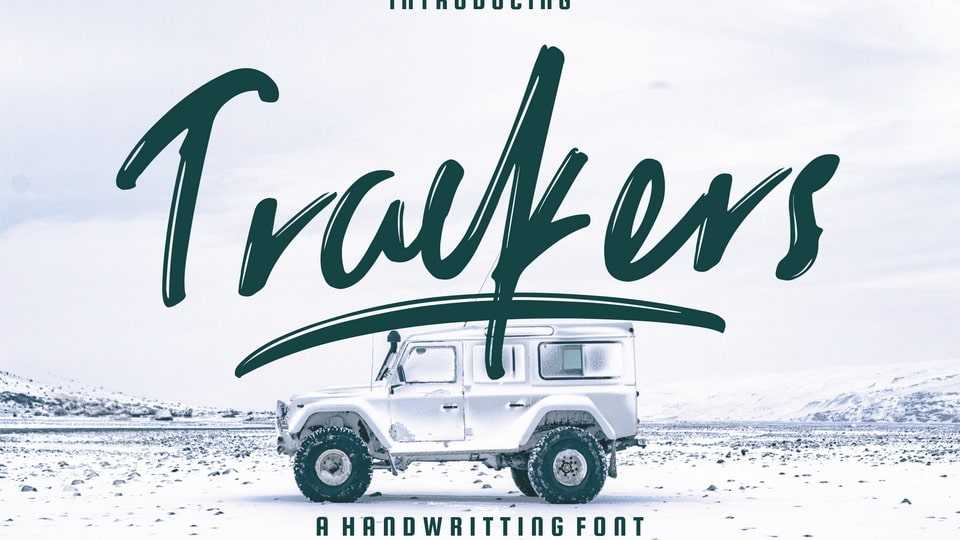
Download Trackers Brush font, a natural brush handwriting typeface. Trackers with a detailed and texture, slightly thick and natural like a hand stroke.